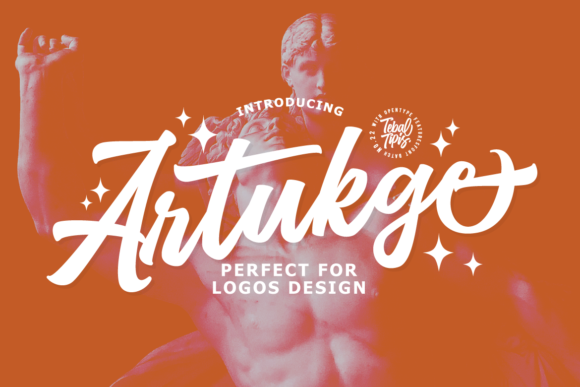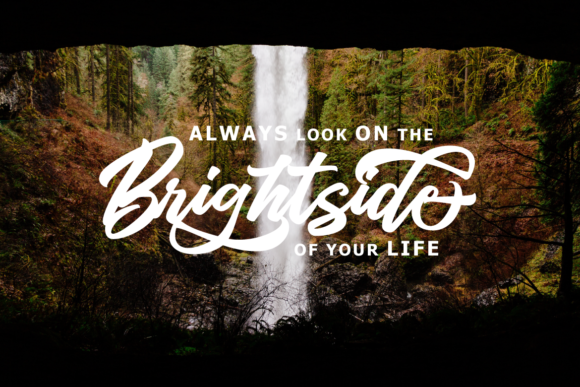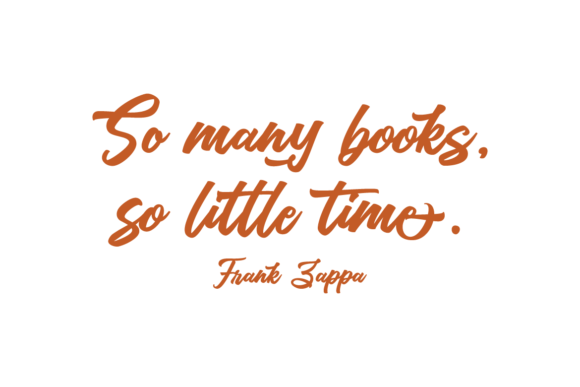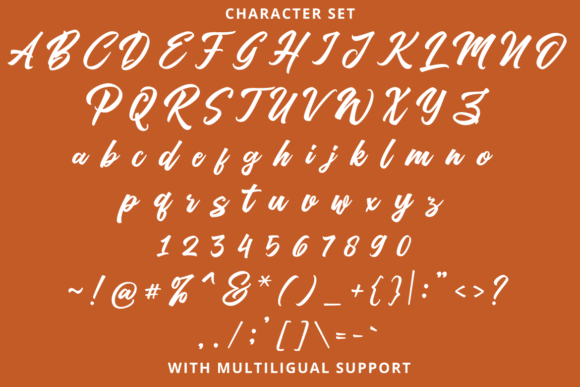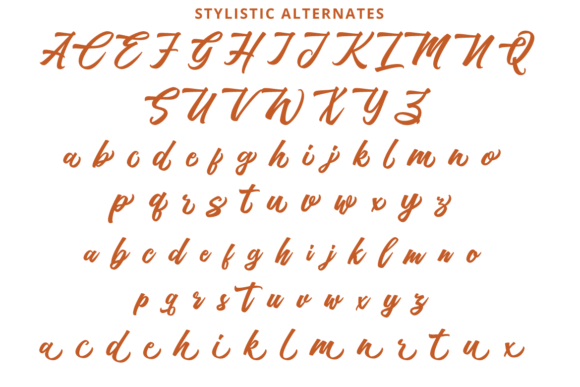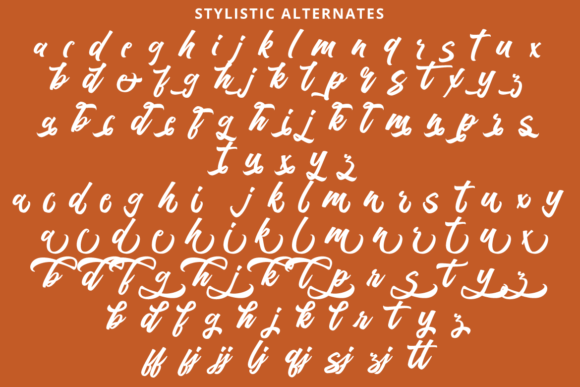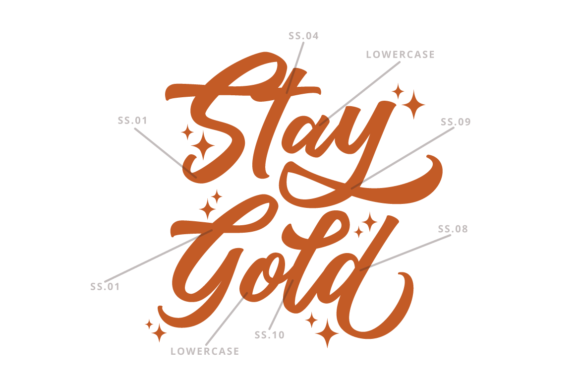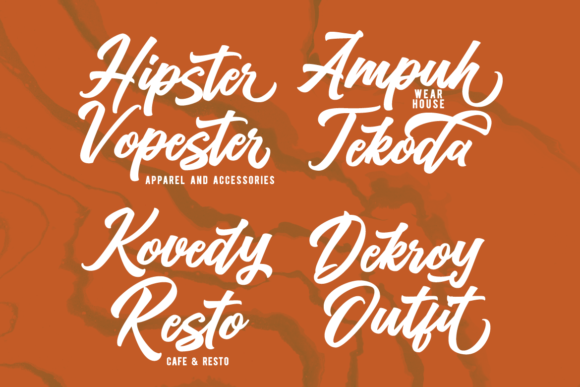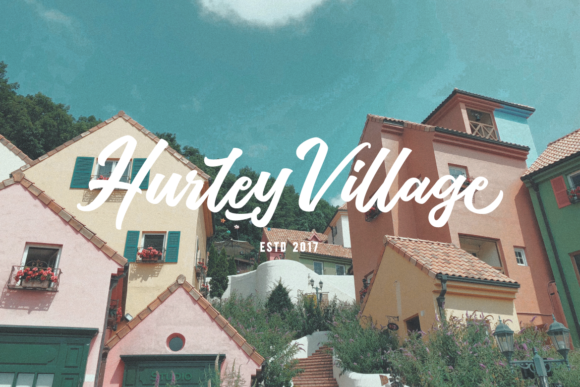
Artukge Script Font
About Artukge Script Font
Artukge Script is a gorgeous paint brushed handwritten font, crafted to give your headlines and logotype projects a stylish touch. This font reads as strong, confident, and dynamic and can add tons of nostalgic character to your designs.